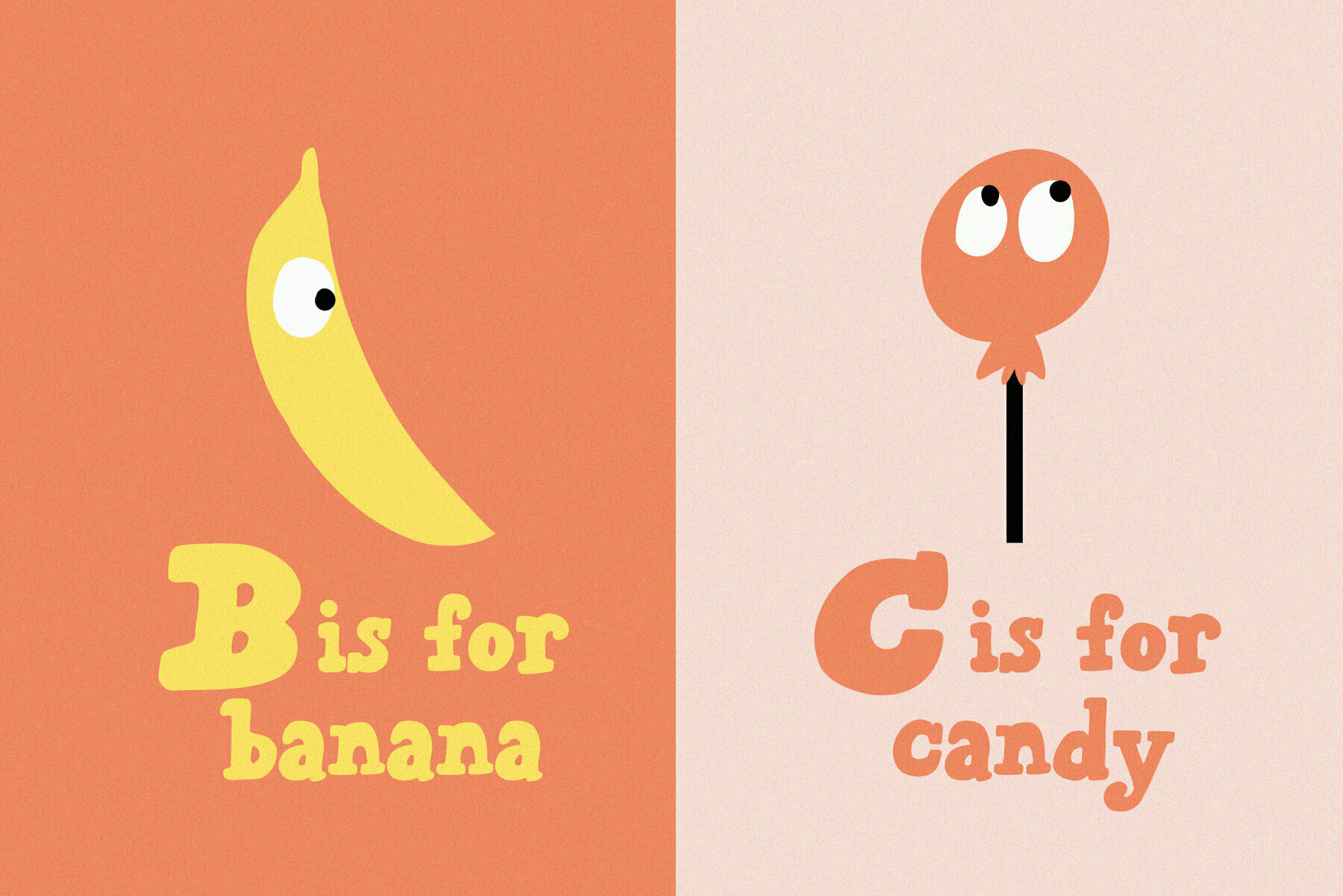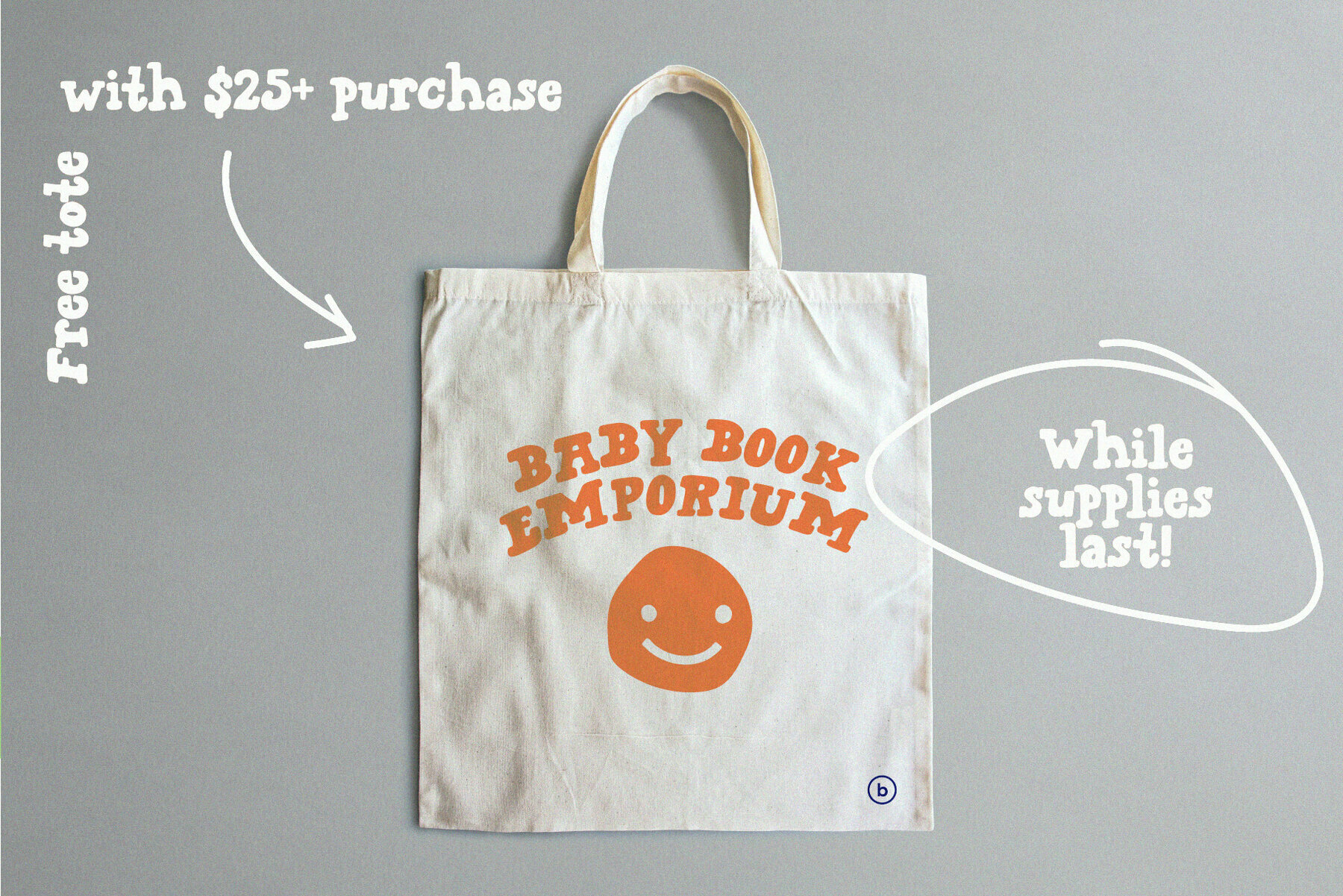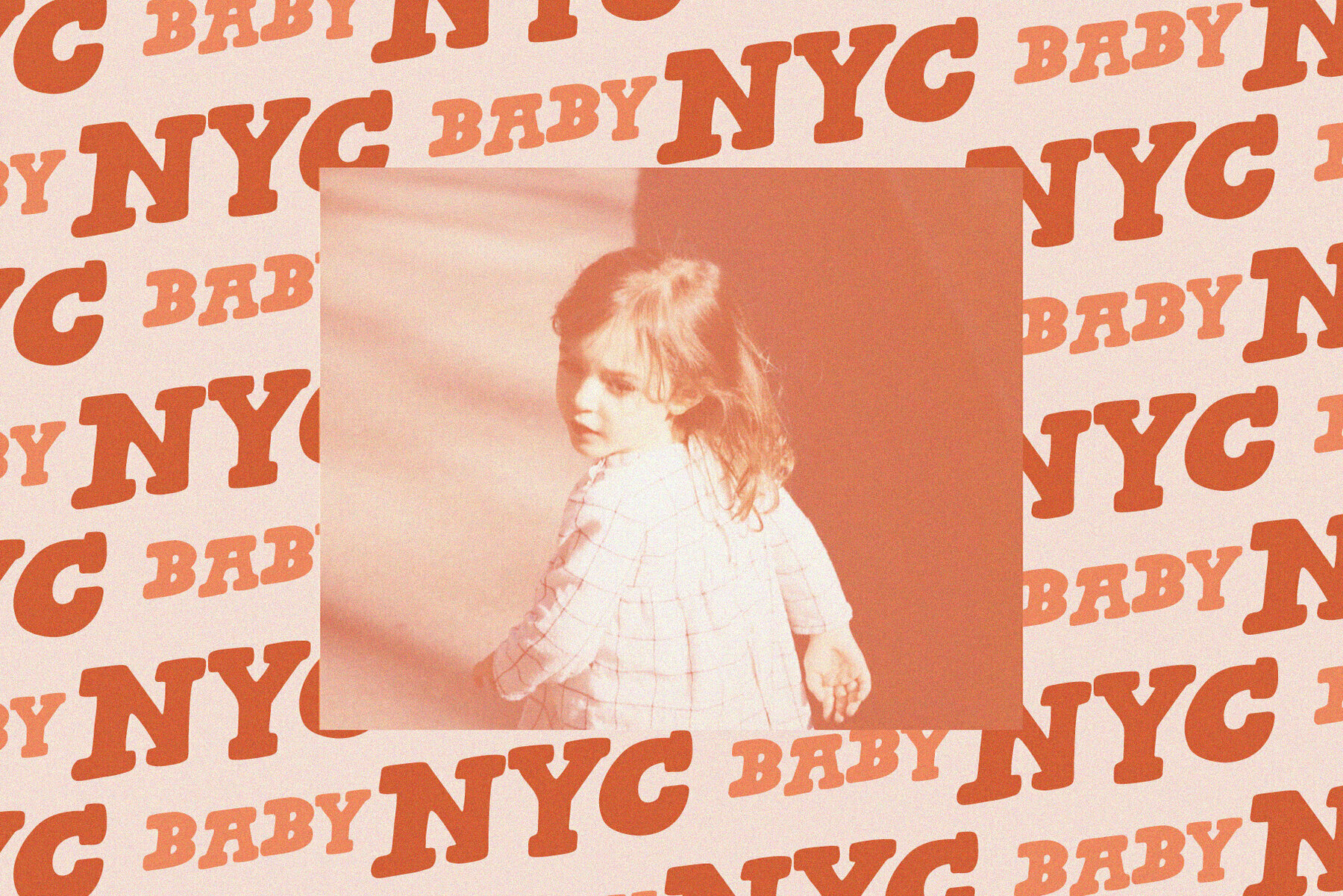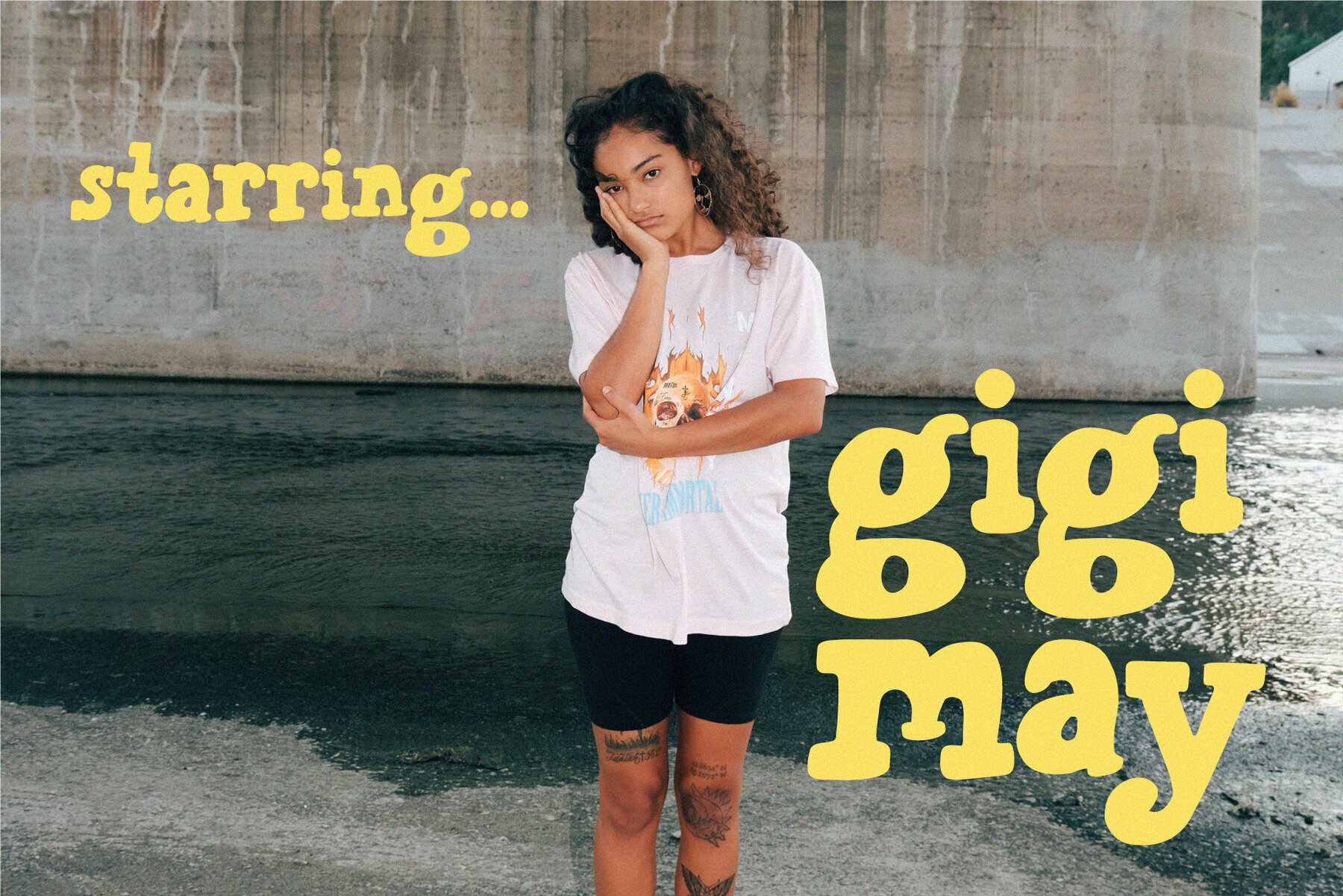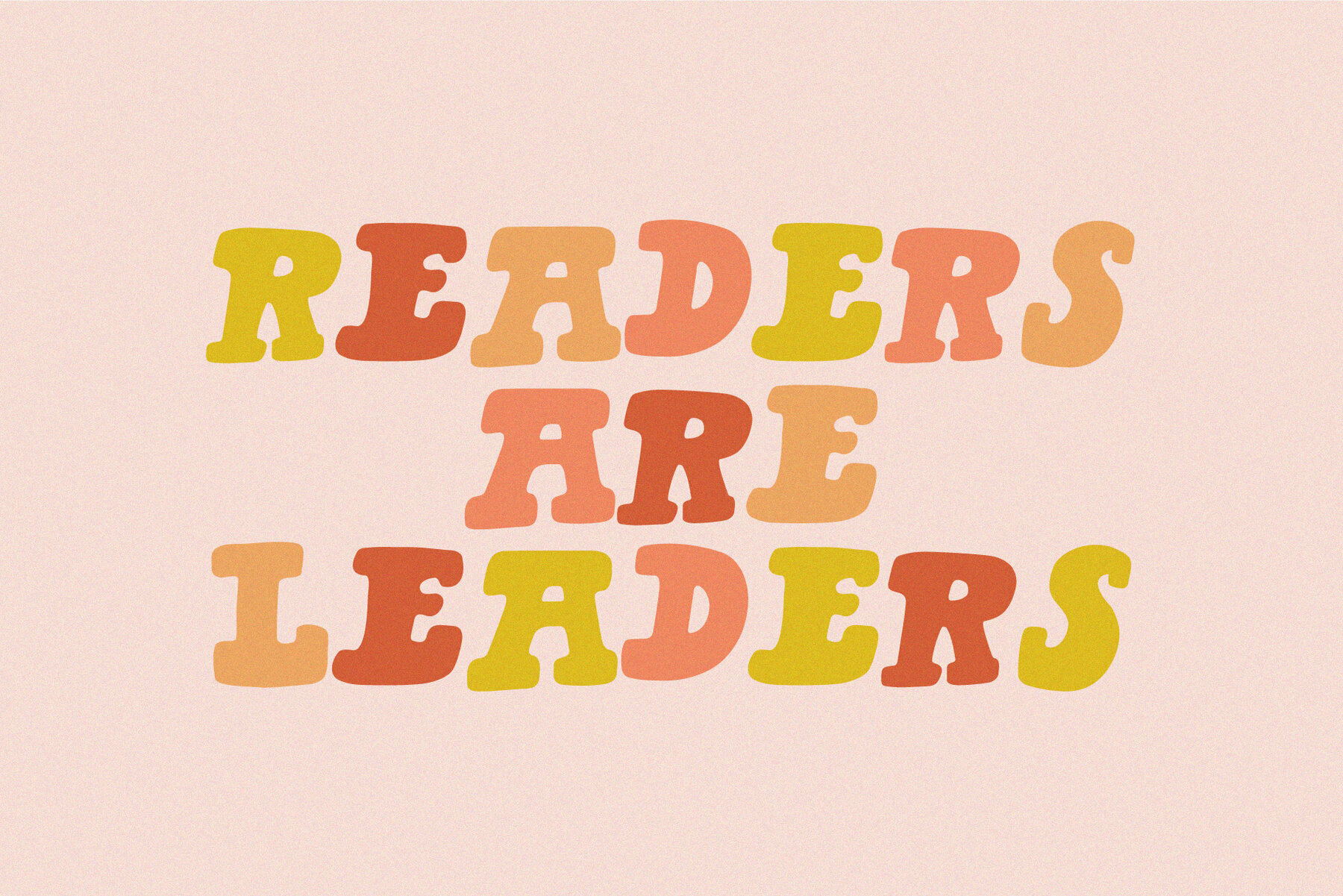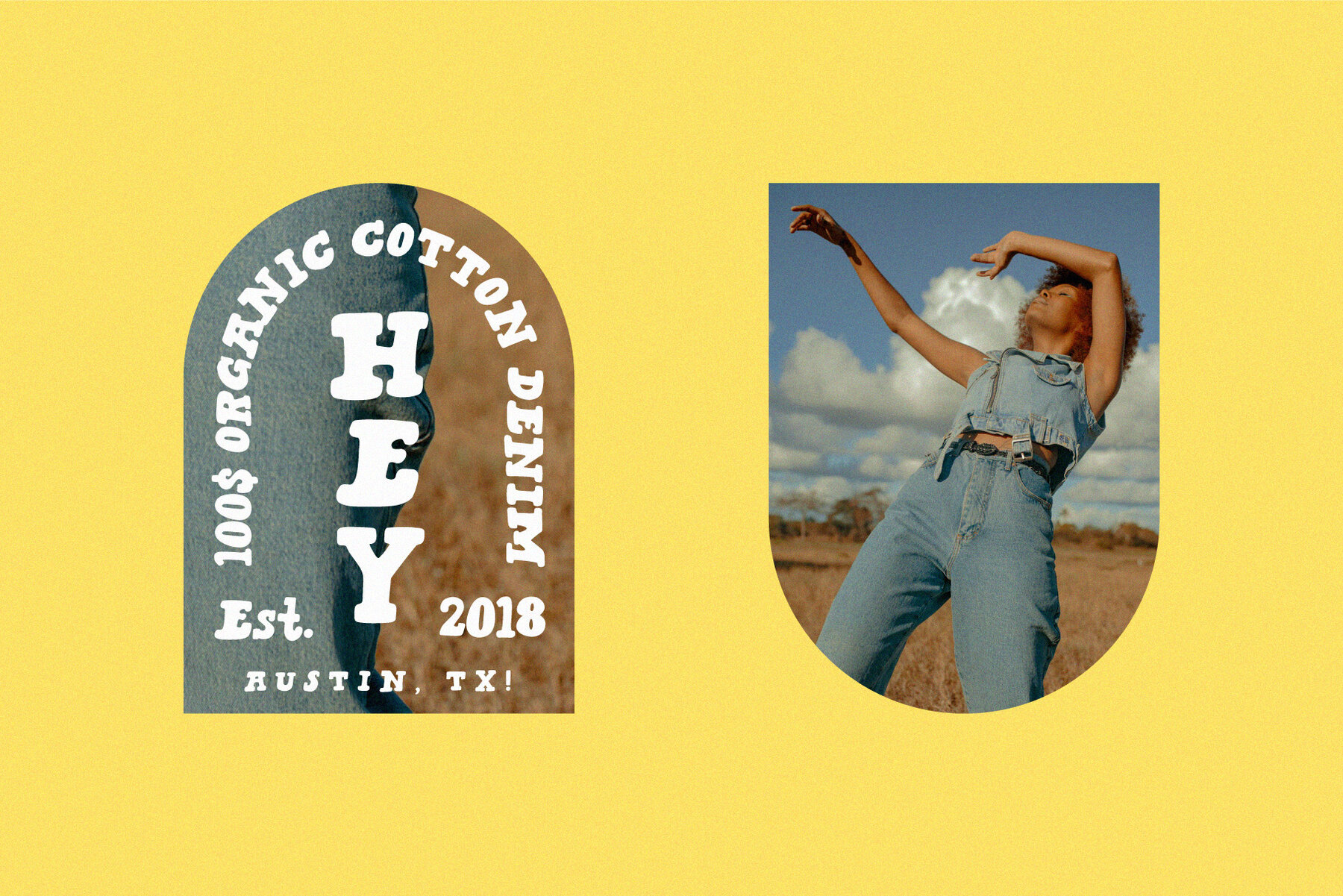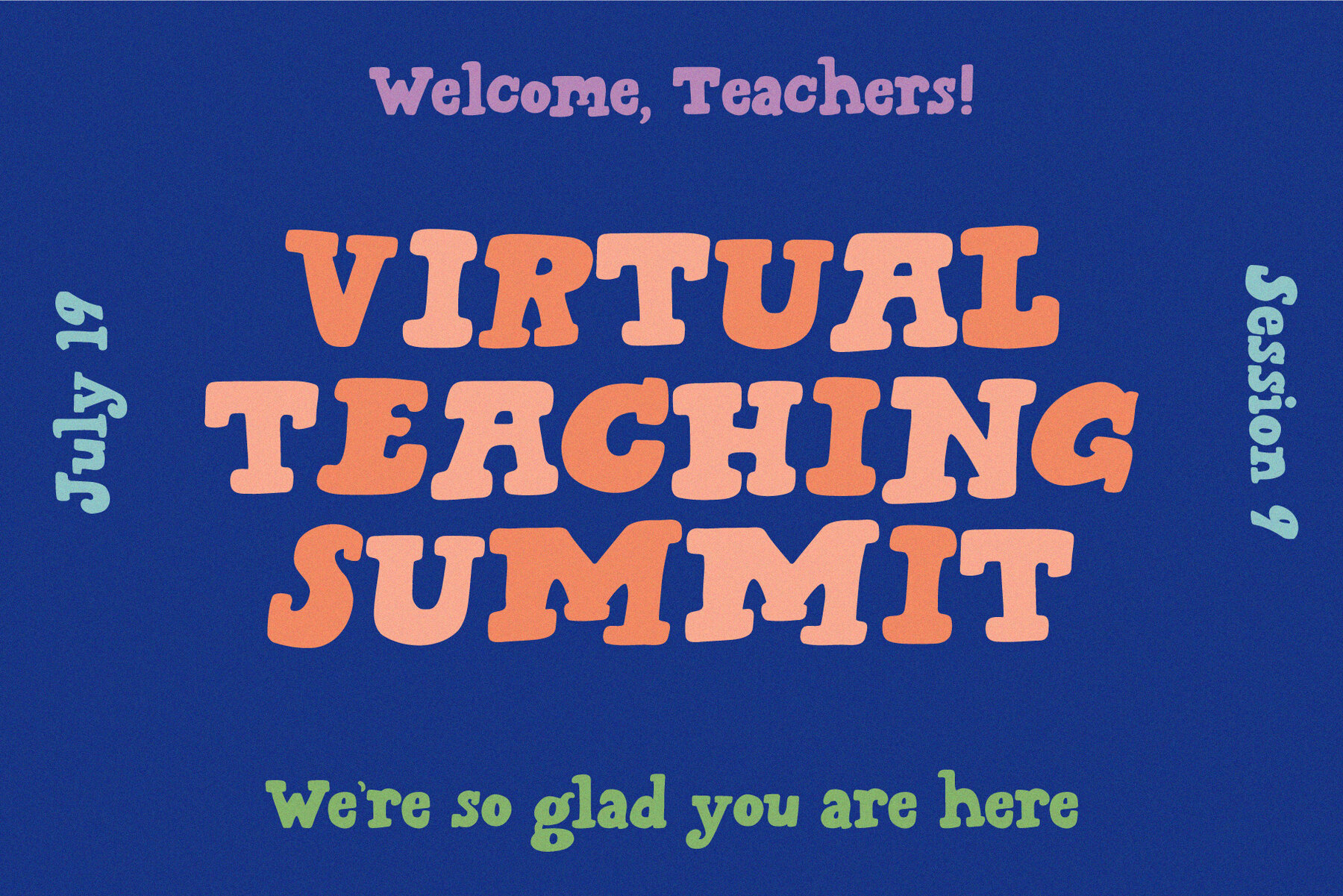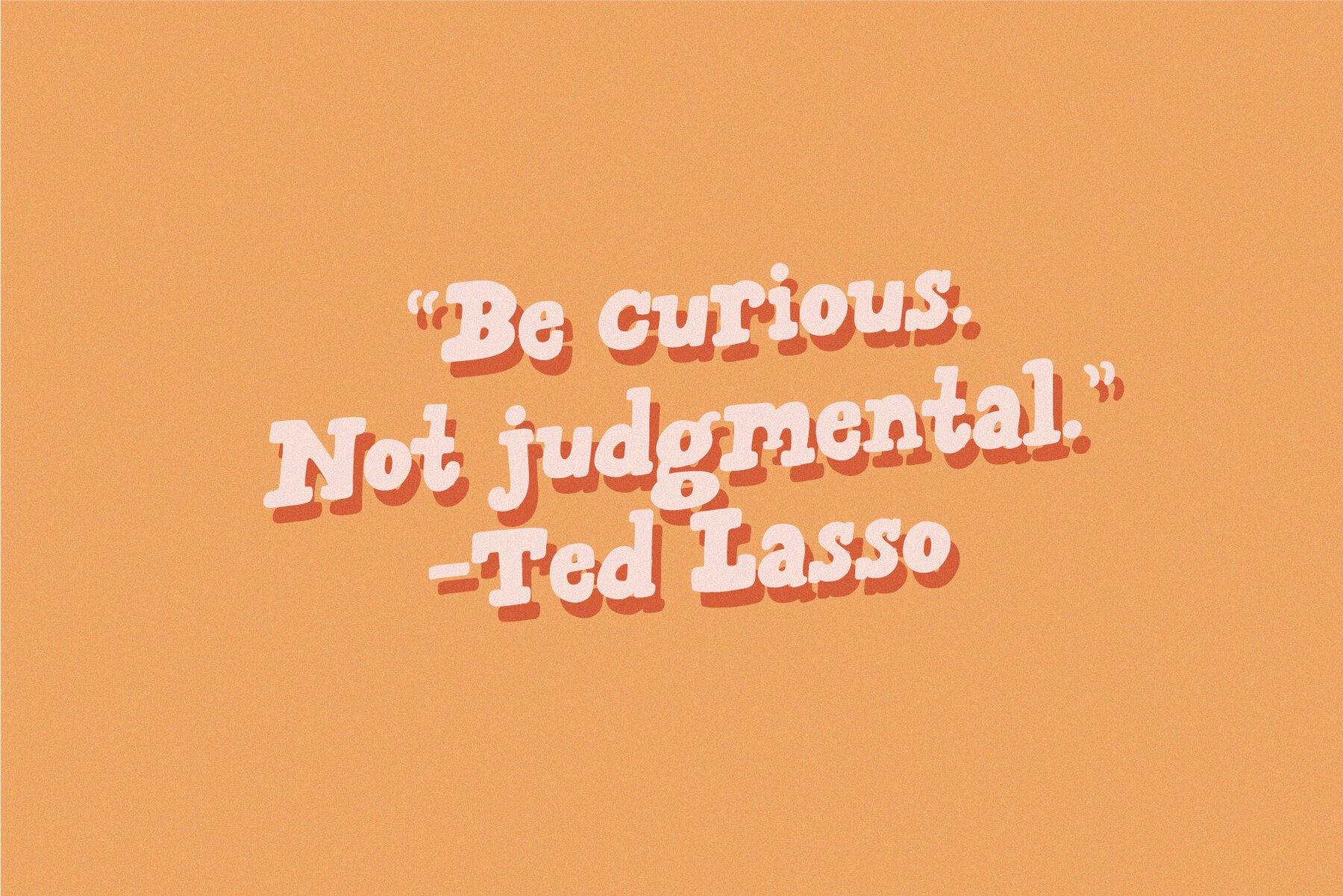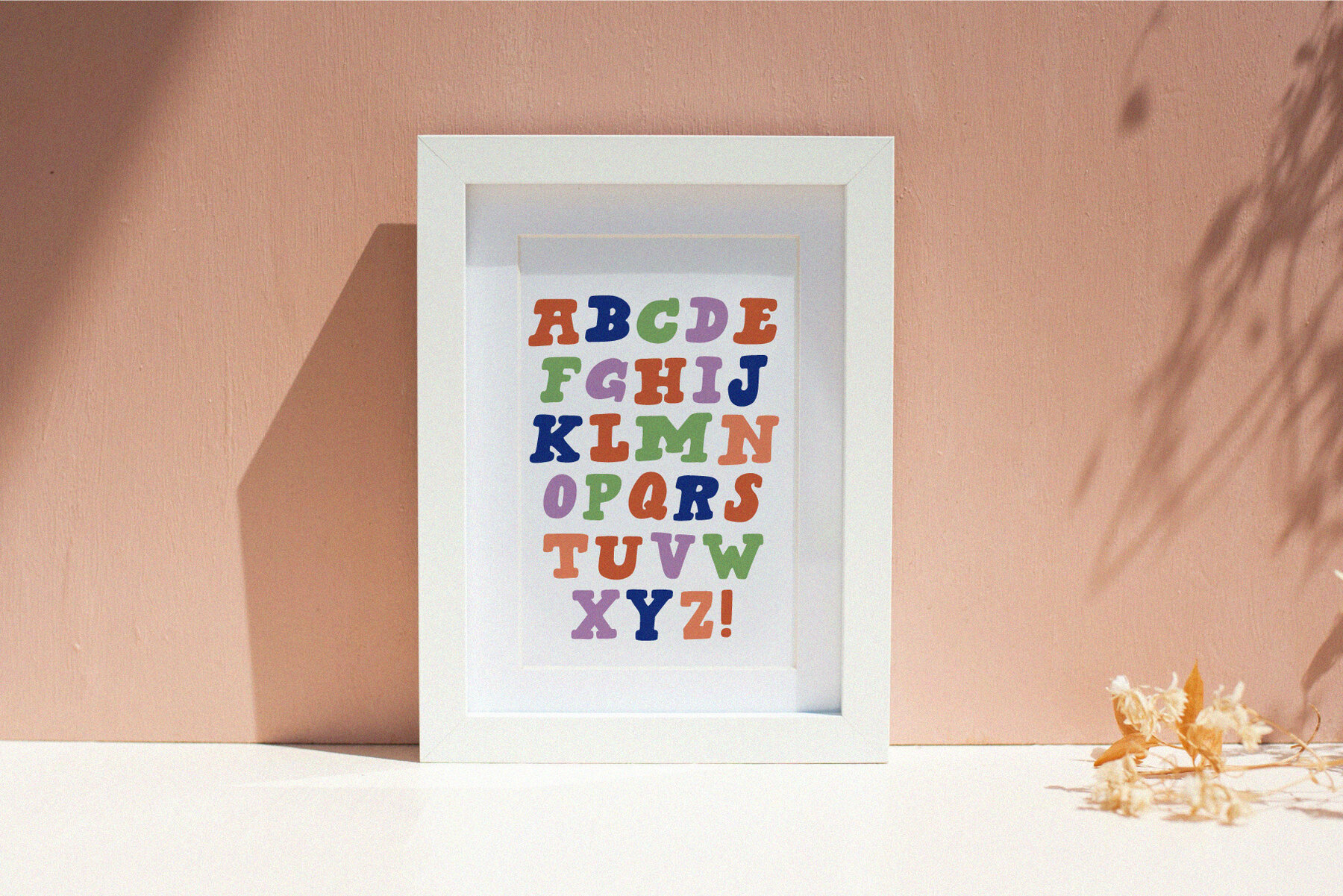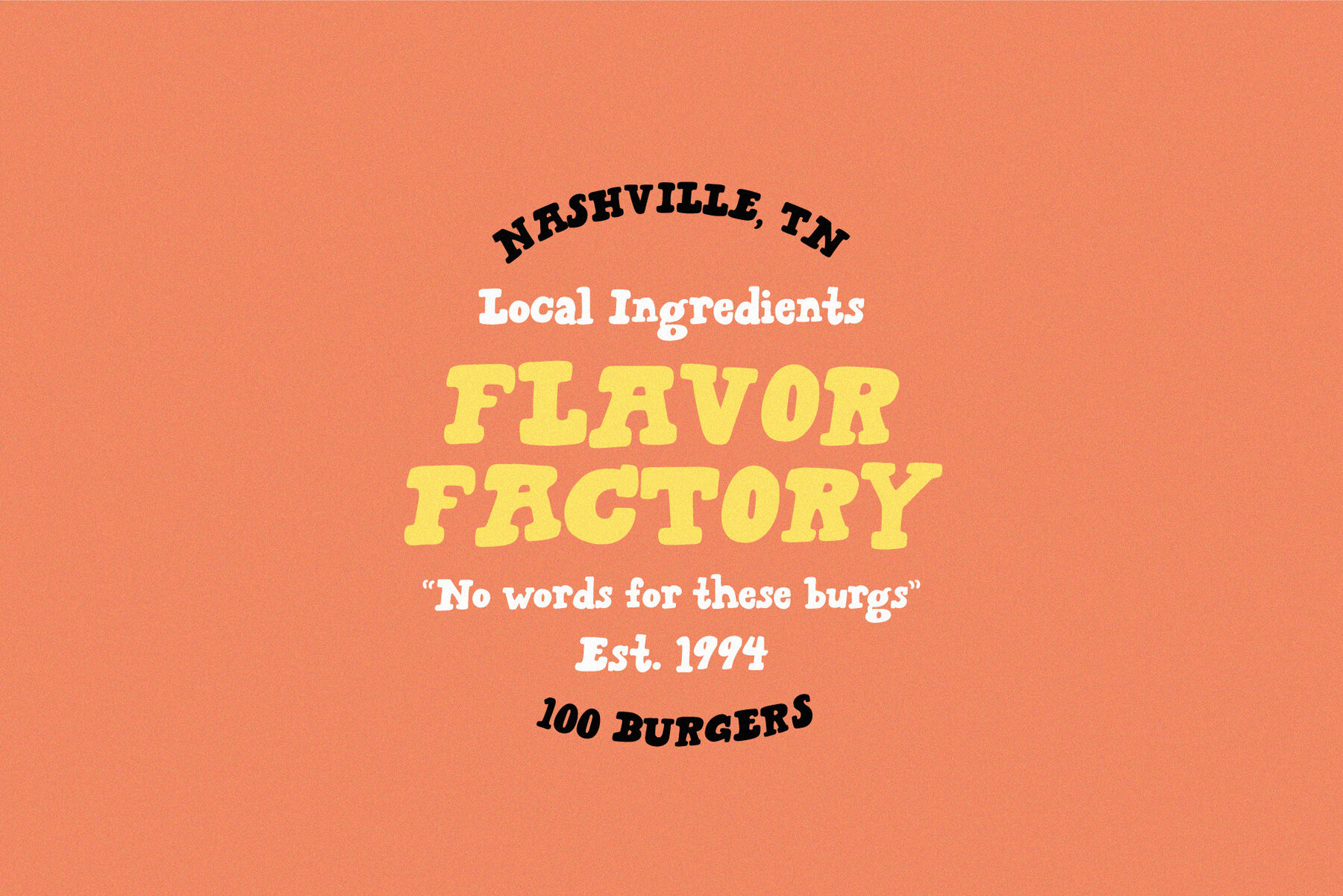
Gigi May is a delightfully wonky serif bubble font. It pumps the playfulness into the serif. It's awesome for children's art (or the young at heart). Gigi May is especially useful for headers and logos, as well as subtitles, children's books, indie branding, Instagram announcements, web banners and more.